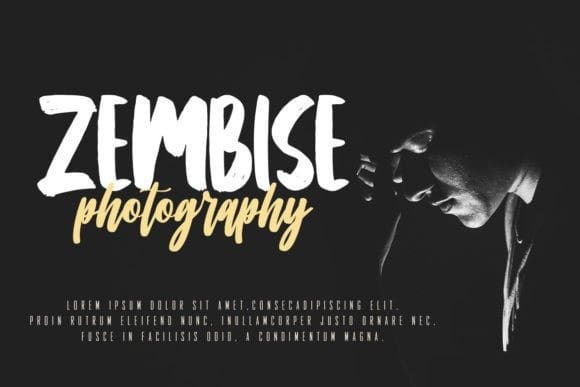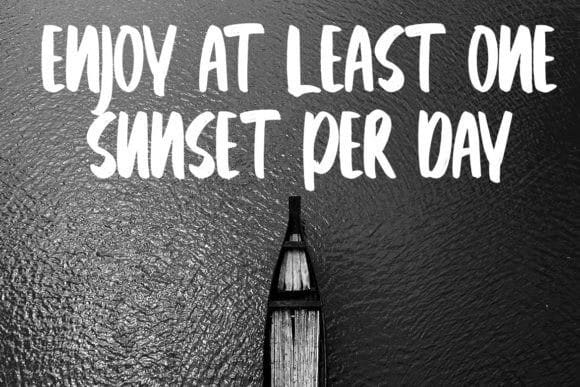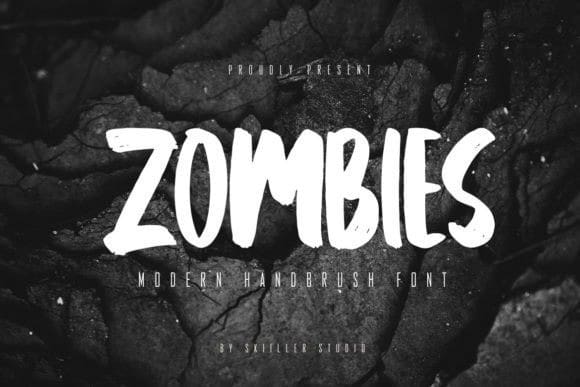
Zombies Brush Font
Zombies Brush Font is a cool and unique handwritten display font. It looks beautiful on a variety of designs requiring a personalized style, such as wedding invitations, thank you cards, weddings, greeting cards, logos, and so on.